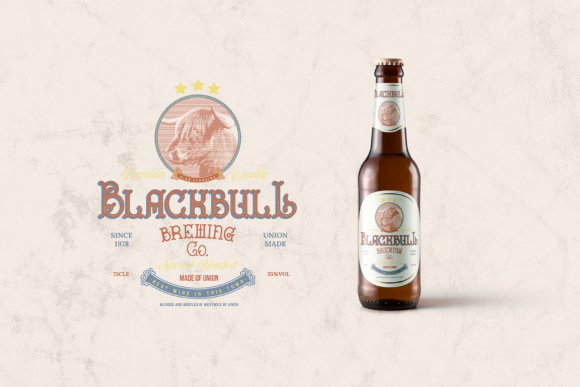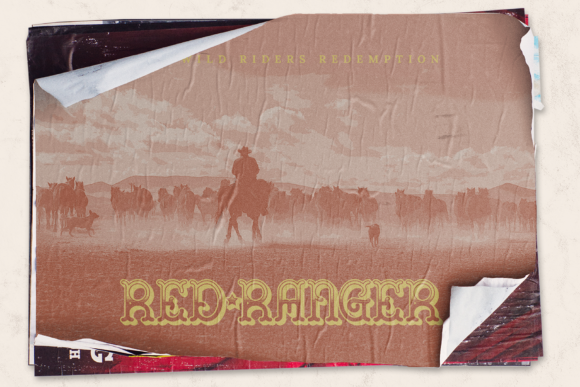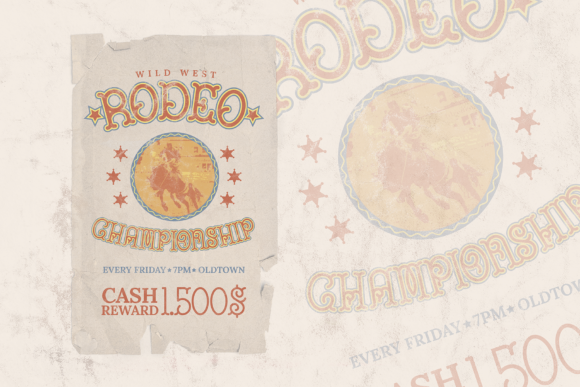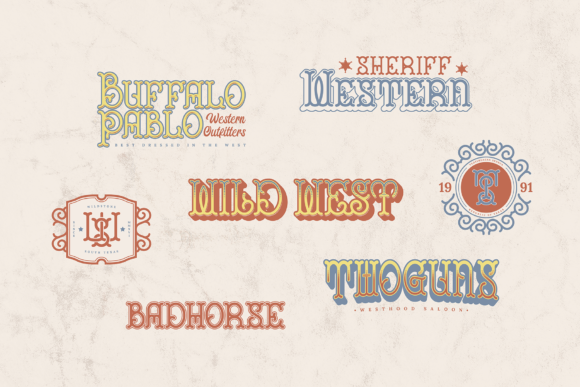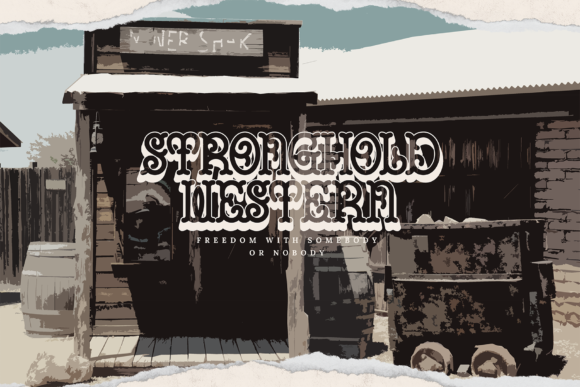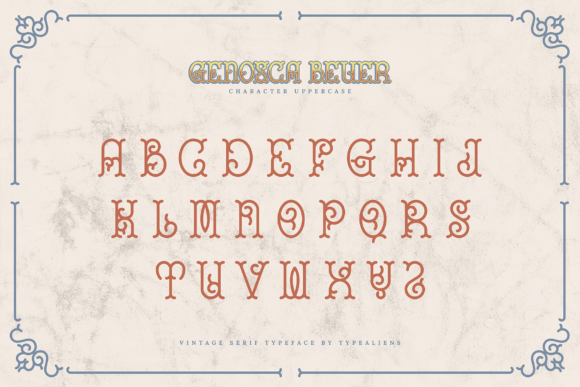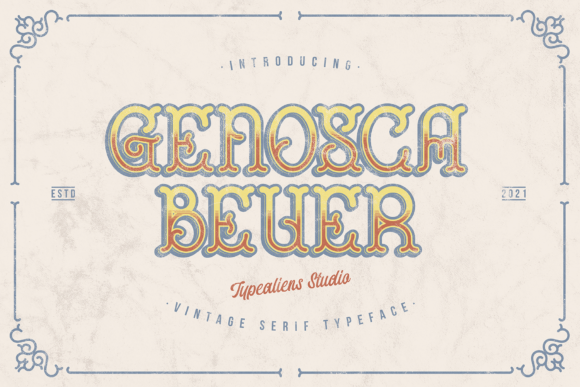
Introducing Genosca Beuer Font: A Bold, Organic, and Vintage Styled Display Font
Are you a designer or crafter looking for a unique and versatile font to elevate your creative projects? Look no further than Genosca Beuer Font. This bold, organic, and vintage styled display font is a wonderful asset to any font library, capable of enhancing any creation with its distinctive charm.
What is Genosca Beuer Font?
Genosca Beuer Font is a carefully crafted display font that embodies the essence of vintage typography with a modern twist. Its bold and organic design makes it perfect for a wide range of applications, from branding and advertising to packaging and digital media. The font’s unique character is sure to capture attention and leave a lasting impression on your audience.
Key Features of Genosca Beuer Font
- Bold and Eye-Catching: Genosca Beuer Font boasts a bold design that demands attention. Its thick lines and distinctive shapes make it perfect for headlines, titles, and other display purposes.
- Organic and Vintage: The font’s organic and vintage style gives it a unique charm that sets it apart from more traditional fonts. Its irregular shapes and subtle imperfections add a touch of character to any design.
- Versatile: Genosca Beuer Font is incredibly versatile, suitable for a wide range of projects and applications. Whether you’re designing a logo, creating a poster, or crafting a social media graphic, this font is sure to enhance your creation.
- Easy to Read: Despite its bold and ornate design, Genosca Beuer Font remains surprisingly easy to read. This makes it perfect for use in both digital and print media.
Use Cases for Genosca Beuer Font
Genosca Beuer Font is an incredibly versatile font that can be used in a wide range of applications. Here are just a few examples:
- Branding and Logo Design: Use Genosca Beuer Font to create a bold and memorable logo that sets your brand apart.
- Advertising and Marketing: The font’s eye-catching design makes it perfect for use in advertising and marketing materials, such as posters, flyers, and social media graphics.
- Packaging Design: Add a touch of vintage charm to your product packaging with Genosca Beuer Font.
- Digital Media: Use the font to create engaging and attention-grabbing digital content, such as blog posts, social media updates, and email newsletters.
Tips for Using Genosca Beuer Font
To get the most out of Genosca Beuer Font, here are a few tips to keep in mind:
- Use it Sparingly: Due to its bold and eye-catching design, Genosca Beuer Font is best used sparingly. Use it for headlines and titles, and pair it with a simpler font for body text.
- Experiment with Colors: The font’s vintage style looks great in a range of colors, from bold and bright to muted and pastel.
- Pair it with Other Fonts: Genosca Beuer Font pairs well with a range of other fonts, from simple sans-serifs to ornate script fonts.
Genosca Beuer Font is a bold, organic, and vintage styled display font that is sure to enhance any creative project. Its unique character, versatility, and ease of use make it a wonderful asset to any font library. Whether you’re a designer, crafter, or simply someone looking to add a touch of personality to your digital content, Genosca Beuer Font is definitely worth checking out.